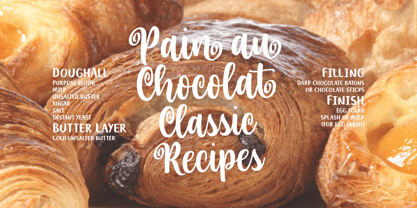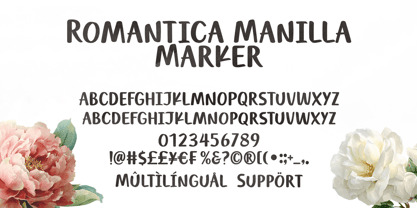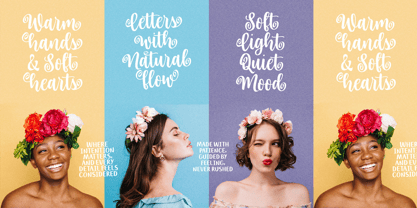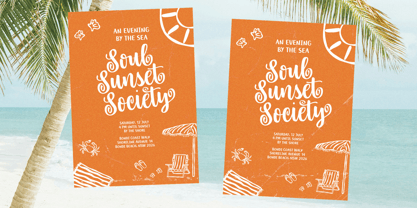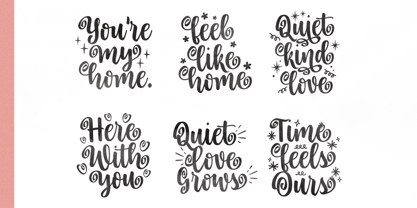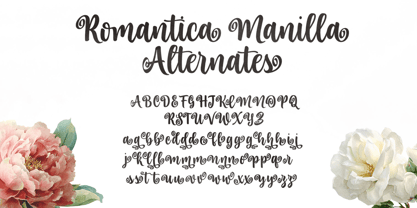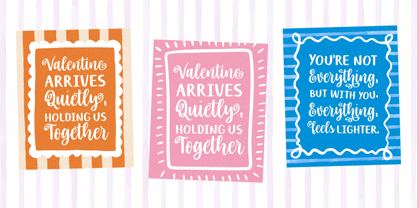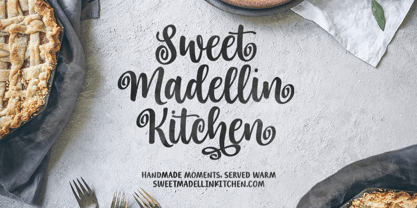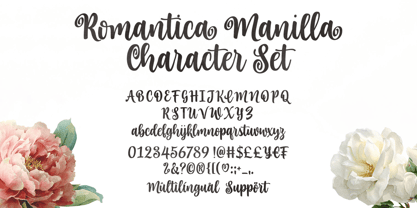
Romantica Manilla
La famille de polices Romantica Manilla a été conçue par Zain Fahroni et publiée par Four Lines Std. Romantica Manilla contient 2 styles et options de package familial. En savoir plus sur cette famille
Romantica Manilla is a font duo that combines a soft, decorative script with an honest and expressive marker font. The script flows with rounded, curly letterforms full of romantic character, while the marker serves as a clean, relaxed, and highly legible companion. Together, they are designed to complement each other, creating a balanced harmony between emotion and clarity. Inspired by the warmth of natural handwritten lettering, Romantica Manilla is ideal for designs that aim to feel personal, sweet, and approachable. It works beautifully for greeting cards, wedding stationery, inspirational quotes, product packaging, creative branding, and social media content. The font includes alternates and ligatures in the script style to add natural visual variation, along with a complete character set, numerals, punctuation, and multilingual support, making it flexible for a wide range of design applications.